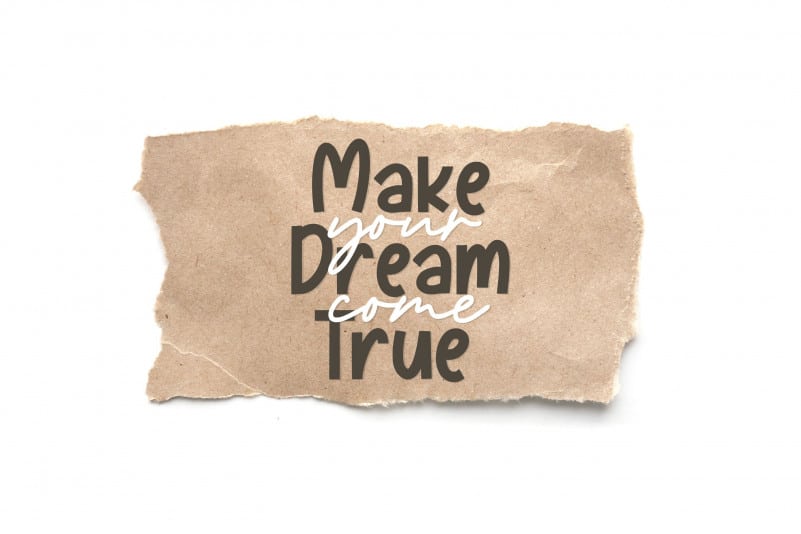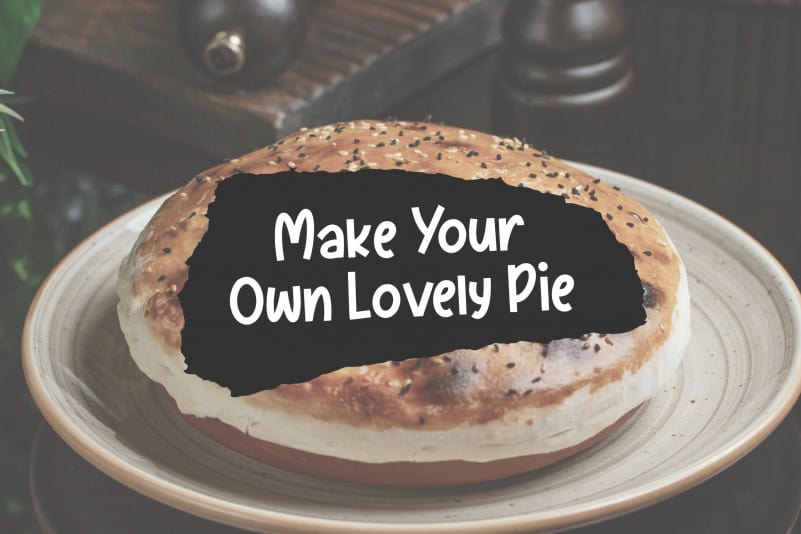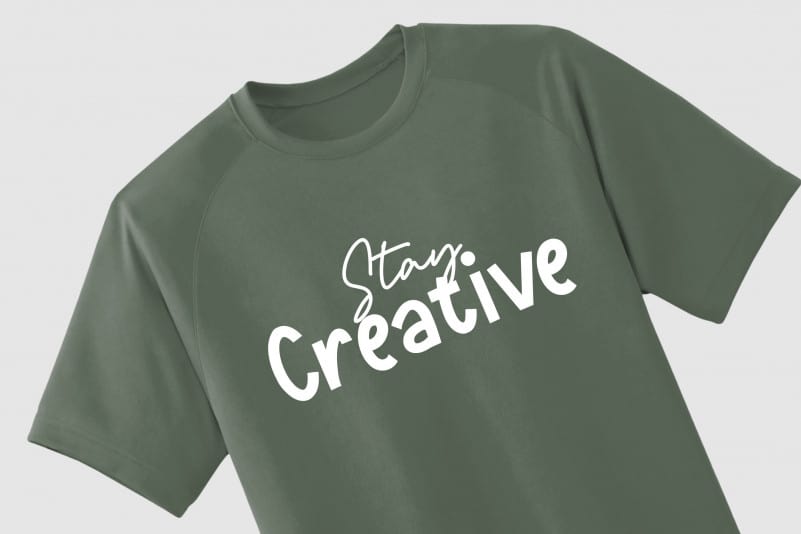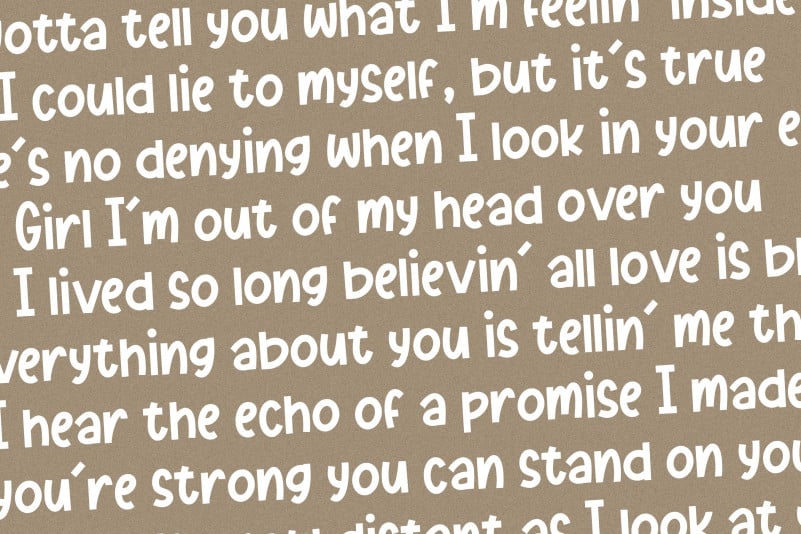
Pumkinpie Cute & Bold Handwritten Font
Proudly Present, Pumkinpie Cute & Bold Handwritten Font.
Pumkinpie is a Cute & Bold Handwritten font.
It is perfect for product packaging, branding project, megazine, social media, wedding, or just used to express words above the background.